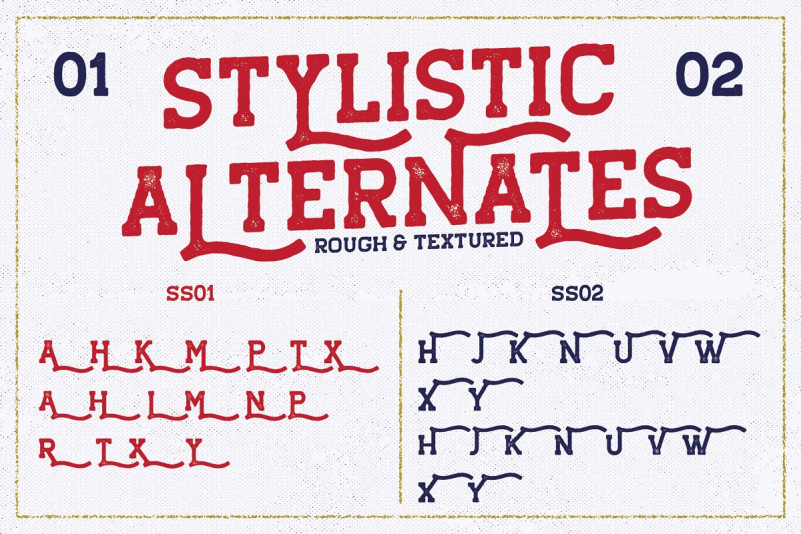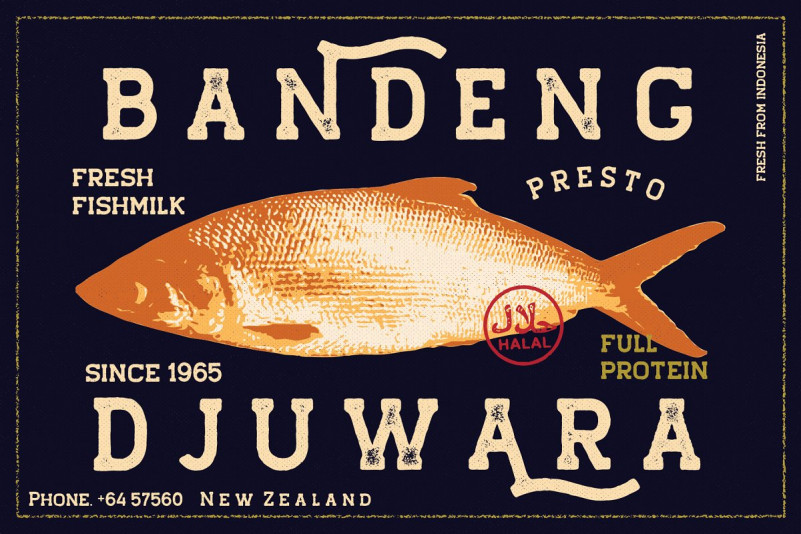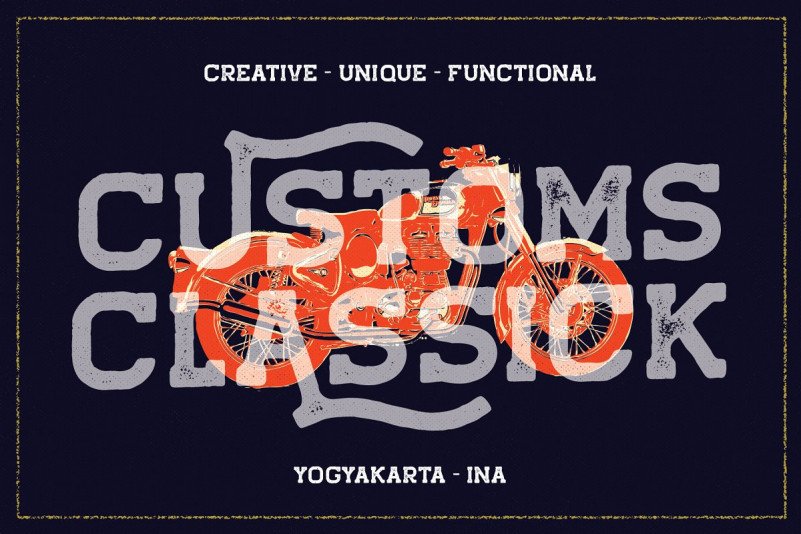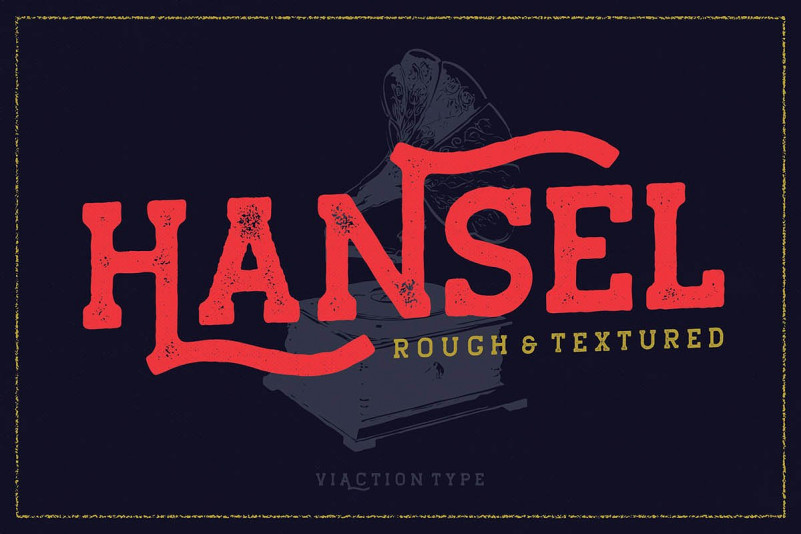
Hansel Slab Serif Font
Hansel Slab Serif Font – Free Demo
Dear Font Lovers! With vintage style, the fonts are great for product logo,wedding card logo, clothing brand logo,Vintage design and much more. Introducing Hansel Font. Hansel is a slab serif with 2 styles rough & textured, nice applied in various products. Complete with multilingual characters and stalistic alternates. It is suitable for quote, clothing design, vintage logo, label, poster, packaging design and other designs.